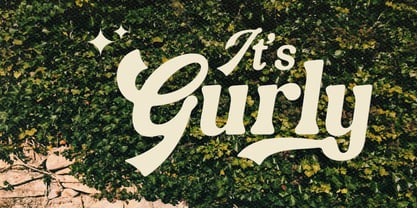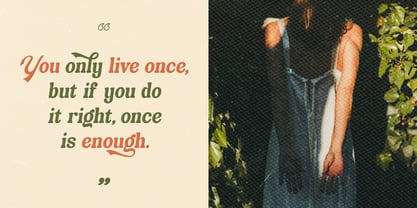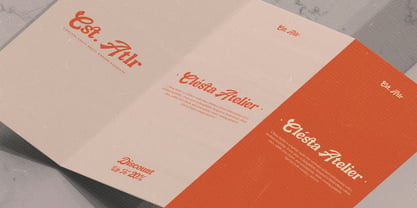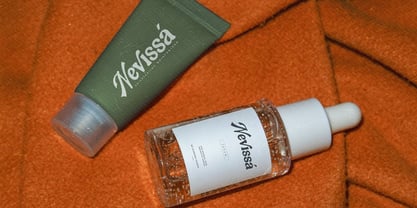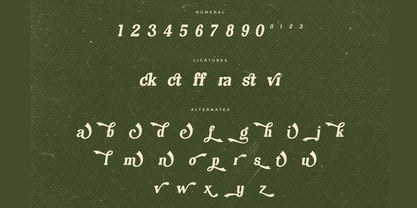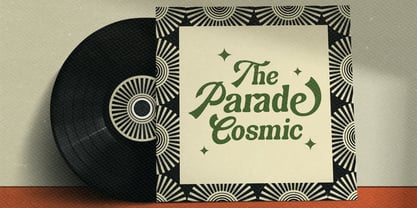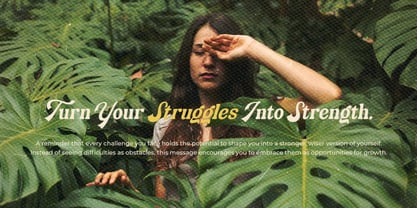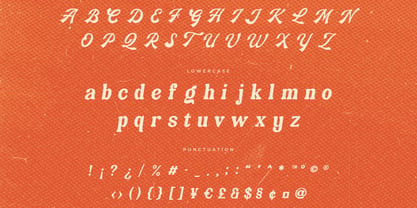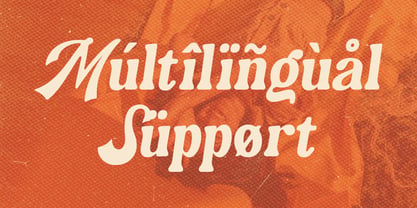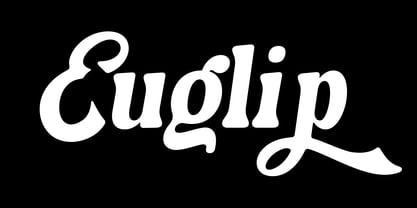
Euglip
Euglip is a retro script serif font that beautifully blends the nostalgic warmth of 70’s-inspired letterforms with a bold, modern serif structure. Designed with expressive curves and refined details, Euglip captures the essence of vintage typography while maintaining a fresh, contemporary feel suitable for today’s creative design trends.
This typeface delivers a perfect balance between personality and sophistication, making it an excellent choice for designers who want to create standout visuals with a timeless retro aesthetic. Its organic alternates and stylish ligatures allow for dynamic typography, giving every project a unique and handcrafted appearance.
Whether you're working on branding, packaging design, retro posters, editorial layouts, logos, advertising campaigns, product labels, or social media visuals, Euglip brings a distinctive voice that feels both nostalgic and modern at the same time.
✿ Key Features:
• Retro Script Serif Design: Inspired by classic 70’s typography with a modern twist.
• Expressive Letterforms: Smooth curves and bold serif structure for visual impact.
• Alternates & Ligatures: Creative typographic flexibility for unique compositions.
• Organic Handcrafted Feel: Adds warmth and personality to every design.
• Multilingual Support: Includes accented characters for global usability.
• Complete Symbol Set: Numbers, punctuation, fractions, and special characters.
• Versatile Styling: Perfect for both bold headlines and expressive branding.
✿ Perfect For:
• Retro Branding & Logo Design: Create nostalgic yet modern brand identities.
• Packaging & Product Labels: Ideal for vintage-inspired products and creative packaging.
• Editorial & Magazine Titles: Add personality and charm to headlines and covers.
• Posters & Advertising Design: Perfect for eye-catching retro campaigns.
• Social Media Graphics: Stand out with expressive and stylish typography.
• Fashion & Lifestyle Branding: Great for boutique and creative brand projects.
• Creative Typography Projects: Ideal for quotes, artwork, and expressive layouts.
Bring timeless character to your designs with Euglip—a retro script serif font that combines vintage 70’s inspiration with modern elegance, expressive ligatures, and creative alternates. Perfect for branding, posters, packaging, logos, editorials, and bold visual storytelling.